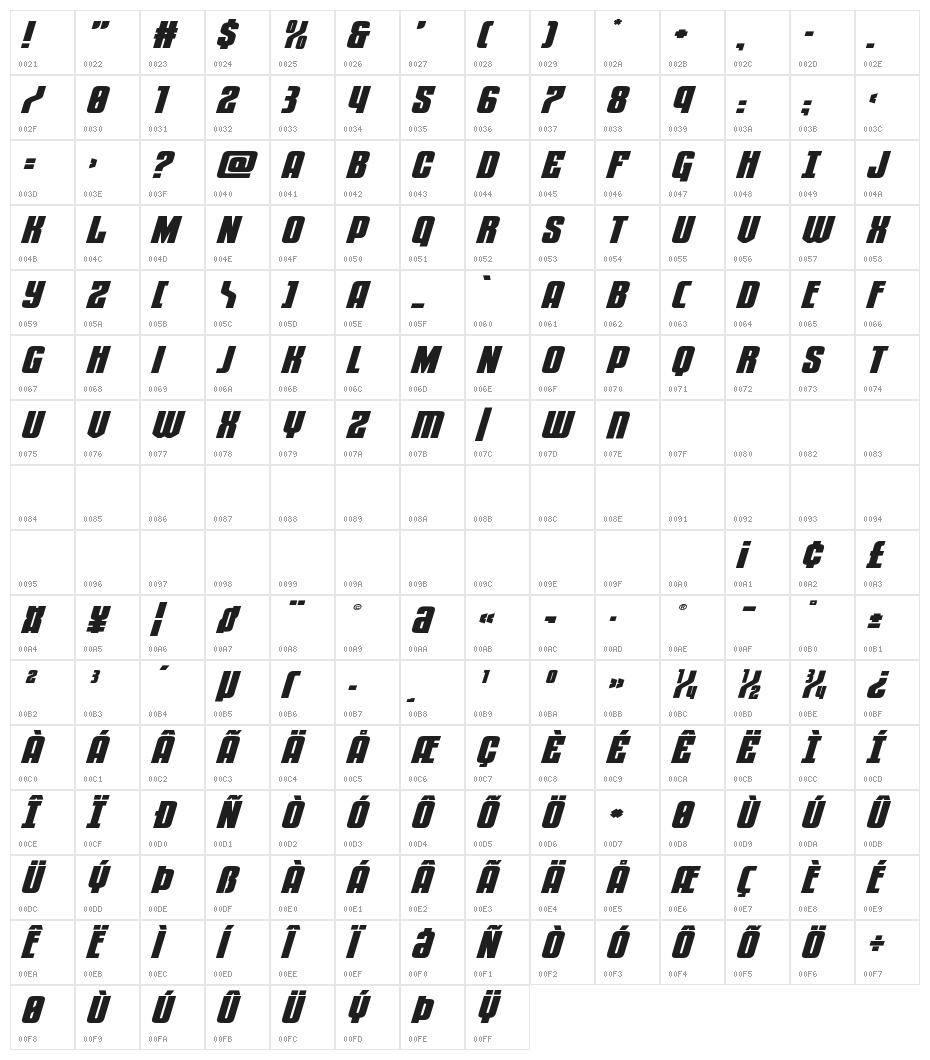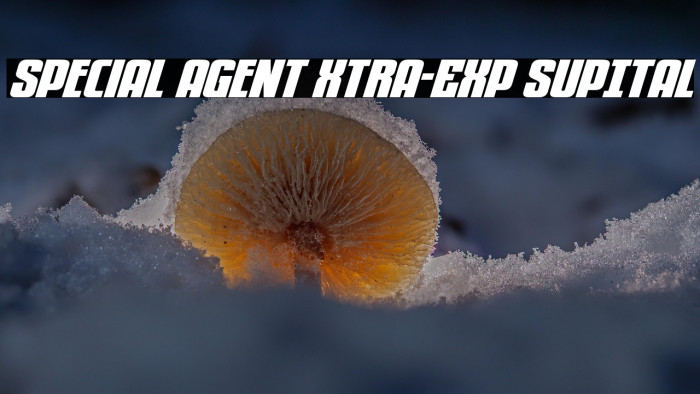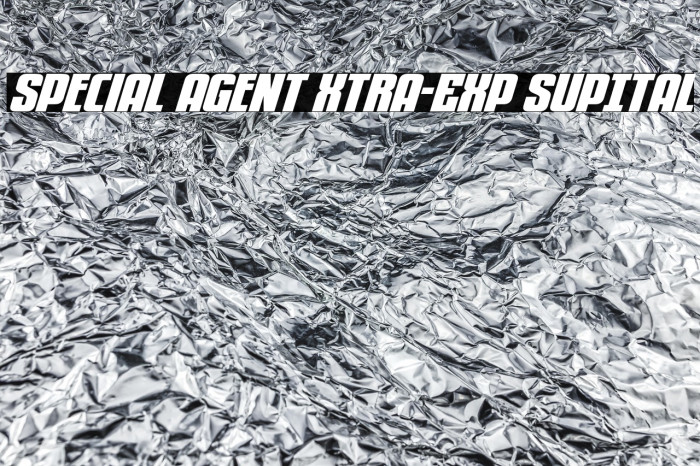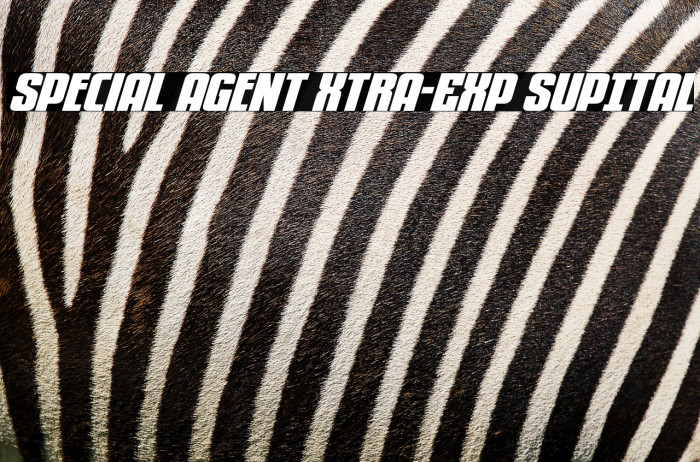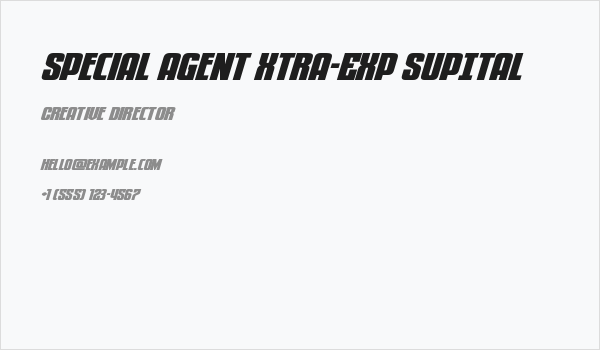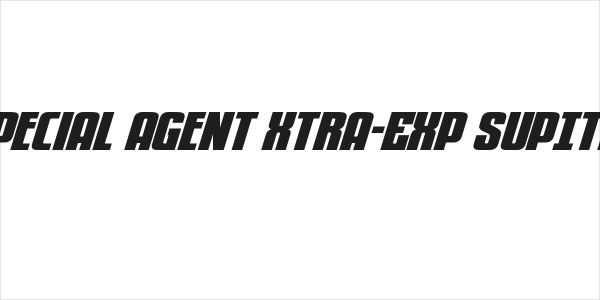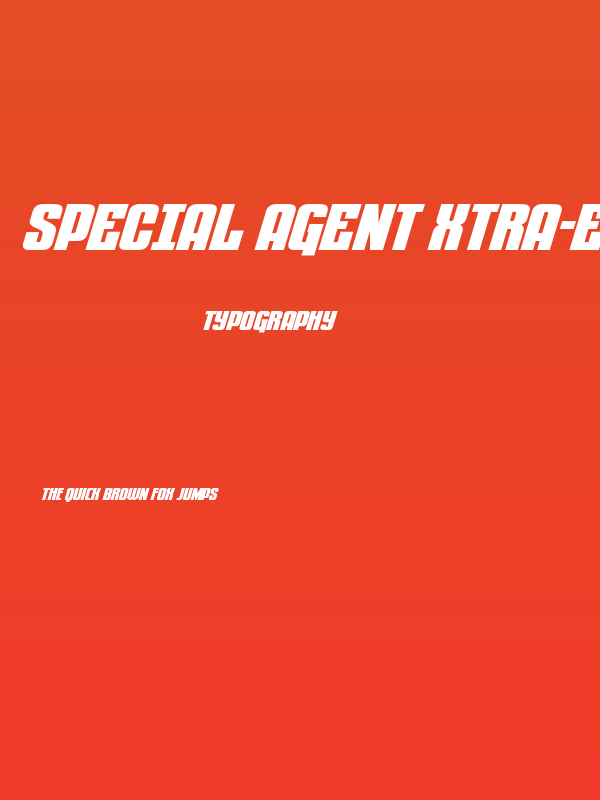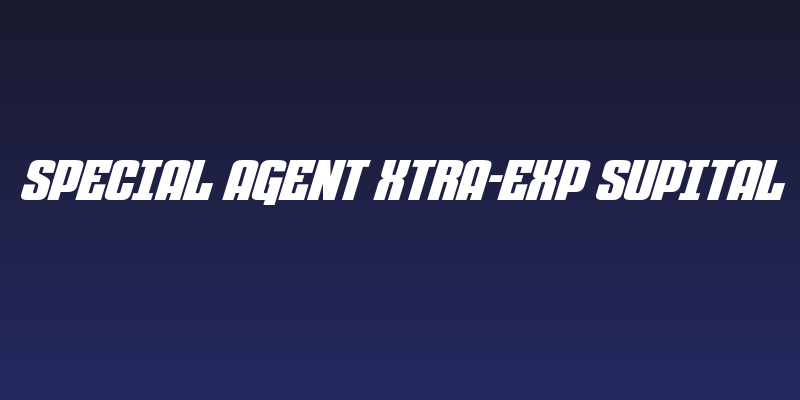
Special Agent Xtra-Exp SupItal Font
Special Agent Xtra-Exp SupItal Description
This font features a bold and dynamic style with a strong italic slant, giving it a sense of movement and urgency. The characters are wide and expanded, with a consistent thickness throughout, contributing to its bold appearance. The uppercase letters are particularly striking, with sharp angles and clean lines that enhance its modern and assertive look. The numbers and special characters maintain the same bold and italicized style, ensuring uniformity across all glyphs. This font is ideal for making a statement, with its high impact and readability.
| Proposed Projects | Ideal for sports branding, action movie posters, dynamic advertisements, and any project requiring a bold, impactful typeface. |